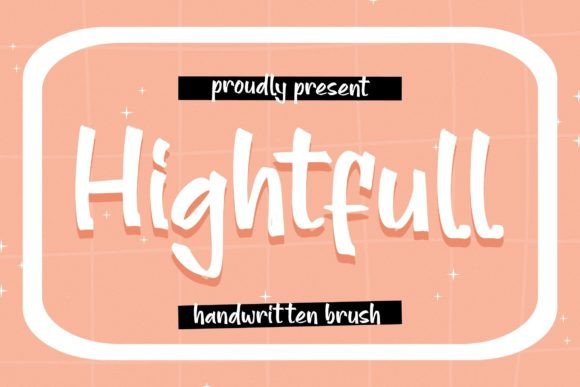
Introducing Hightfull Font: The Boldly Charming Handwritten Brush Script That Will Transform Your Designs!
Step into the world of expressive typography with Hightfull Font, a captivating handwritten brush script font crafted by Glorytype Studio. Prepare to be amazed as this font breathes life into your creations, adding a touch of playful elegance that will leave a lasting impression.
With its bold strokes and authentic marker-board texture, Hightfull Font exudes a unique charm that is perfect for crafting heartfelt messages, heartwarming invitations, and motivational quotes that resonate with your audience. The font's dynamic character lends itself seamlessly to a wide range of design projects, from eye-catching posters and social media graphics to stunning logos and branding elements.
Unlock your creativity and embark on a visual journey like never before. Hightfull Font will elevate your designs to new heights, captivating your audience with its genuine and engaging style. Let your words dance across the screen, leaving a trail of inspiration and delight.
Dive into the world of Hightfull Font and discover a treasure trove of creative possibilities. Its versatile nature allows it to adapt effortlessly to various design aesthetics, from playful and whimsical to sophisticated and elegant. Whether you're a seasoned designer or just starting, this font will become your go-to choice for creating designs that speak volumes.